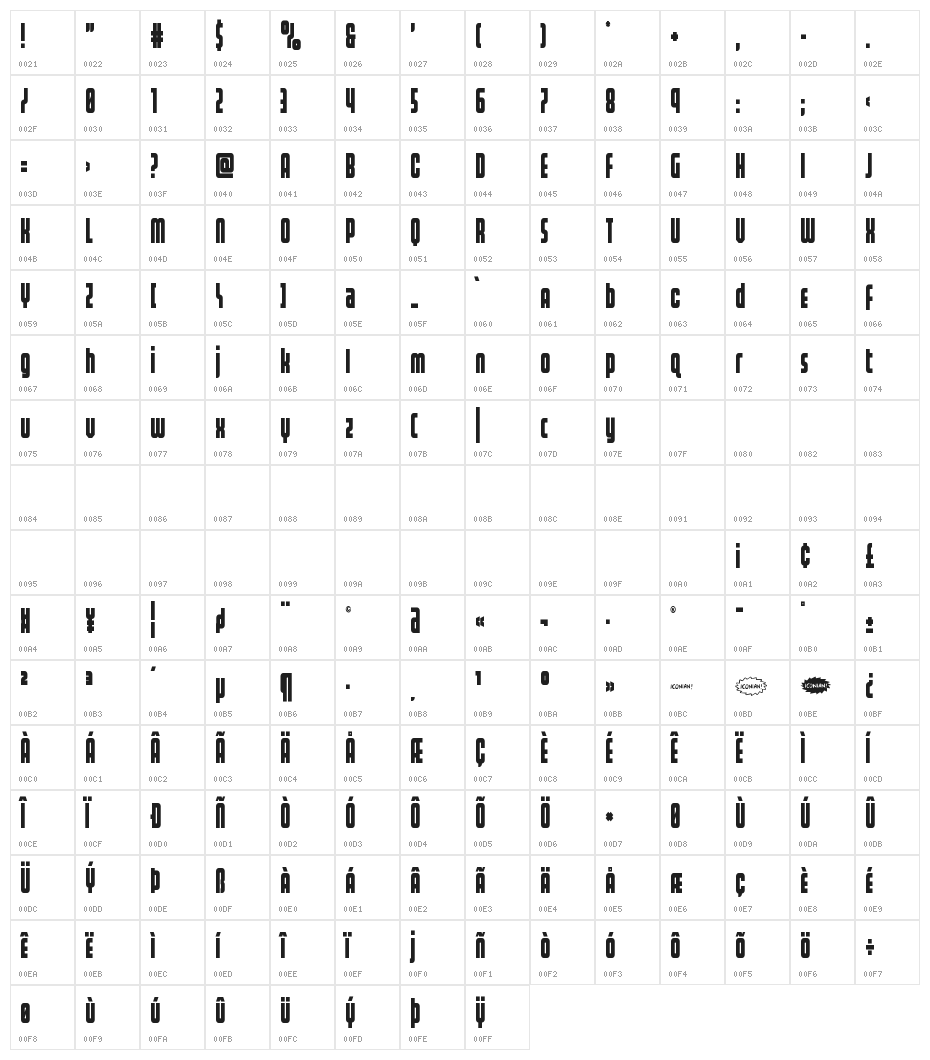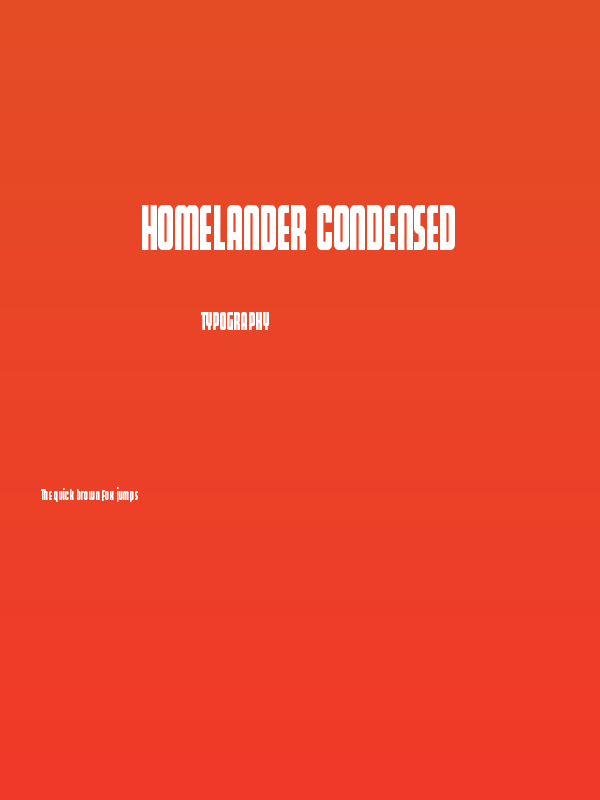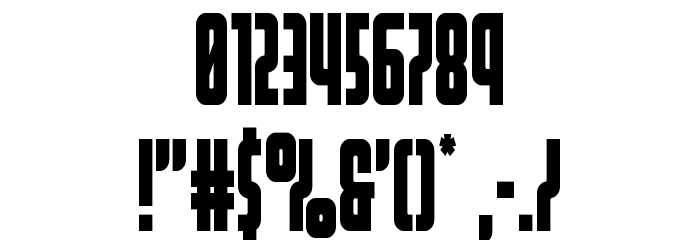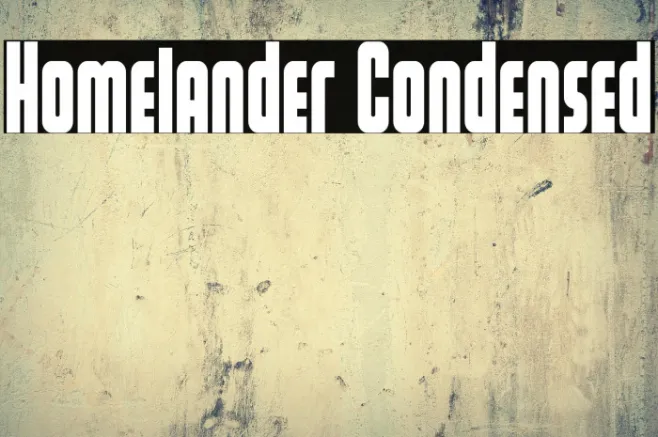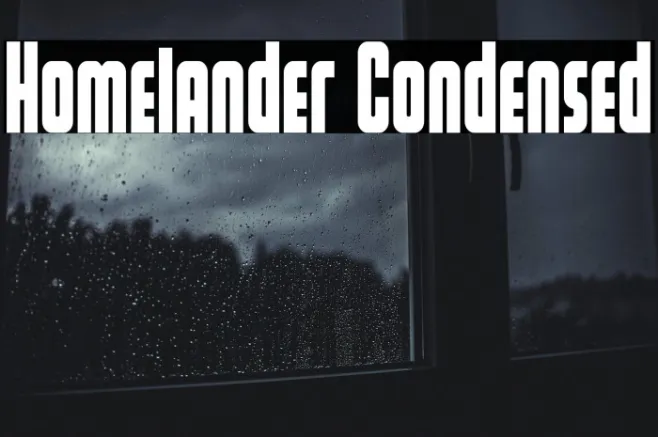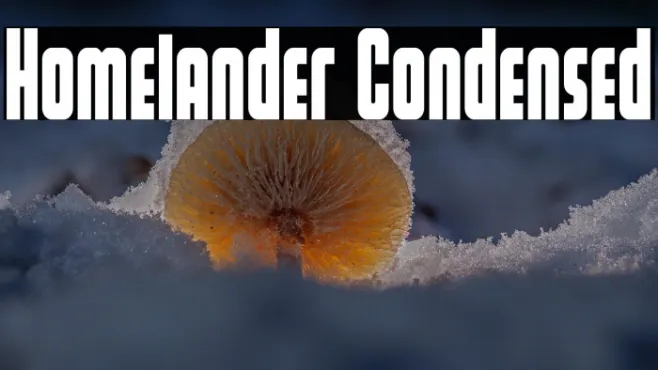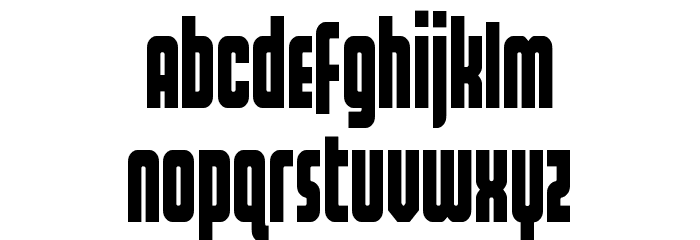
Homelander Condensed Font
Homelander Condensed Description
This font features a bold, condensed style with strong geometric shapes and a modern aesthetic. The uppercase letters are tall and narrow, creating a striking presence, while the lowercase letters maintain a consistent height and width, enhancing readability. The numerals are equally bold, matching the overall robust design. Special characters are designed with the same boldness, ensuring uniformity across all glyphs. The font's condensed nature makes it ideal for space-saving applications without sacrificing impact.
| Proposed Projects | Ideal for posters, headlines, branding, and logos where a strong visual impact is desired. |